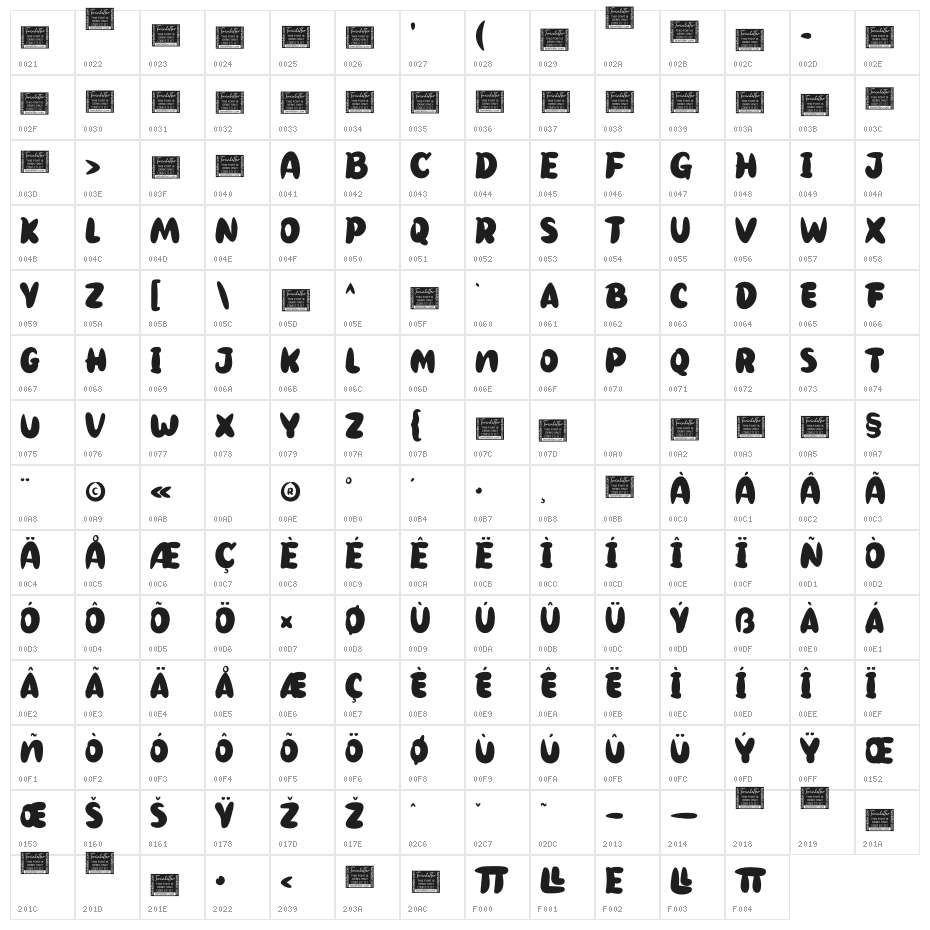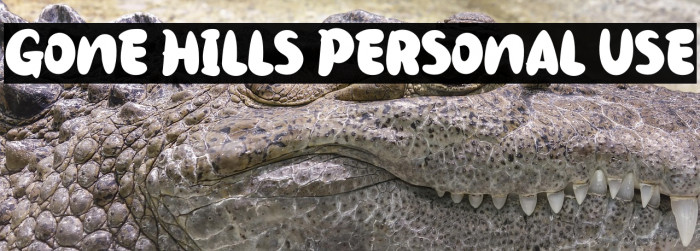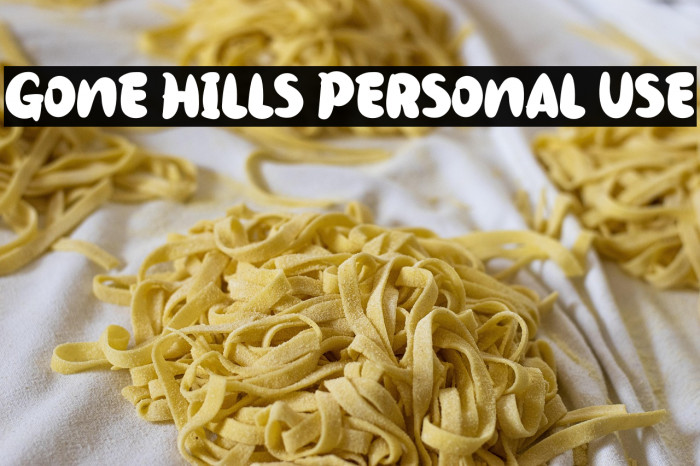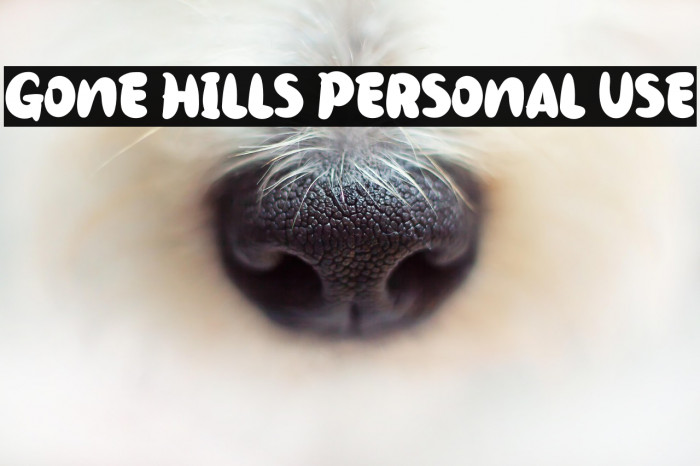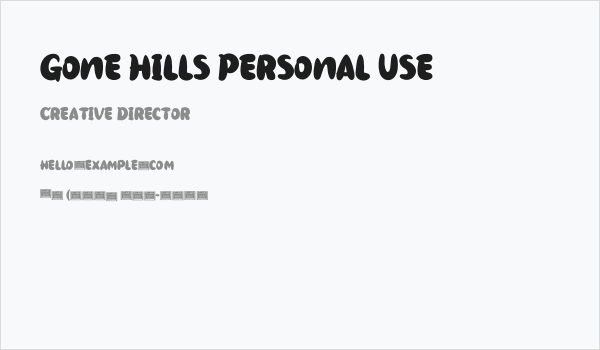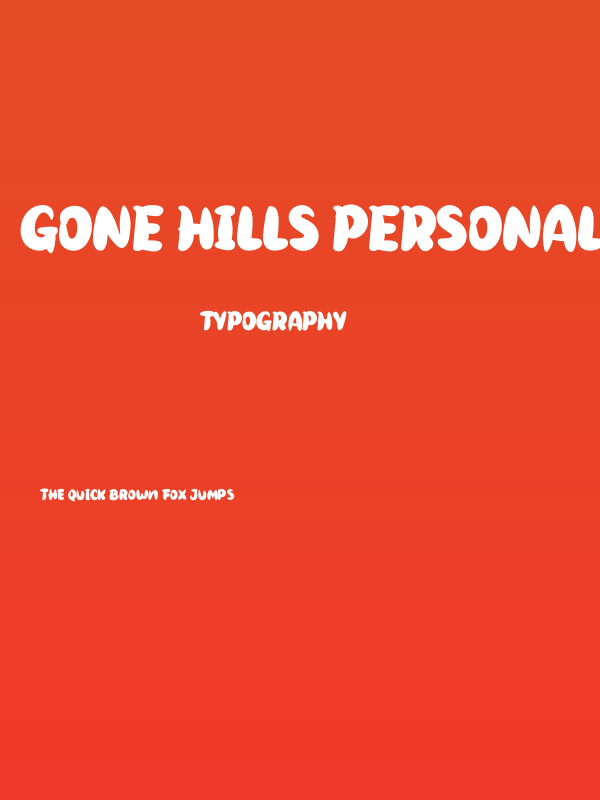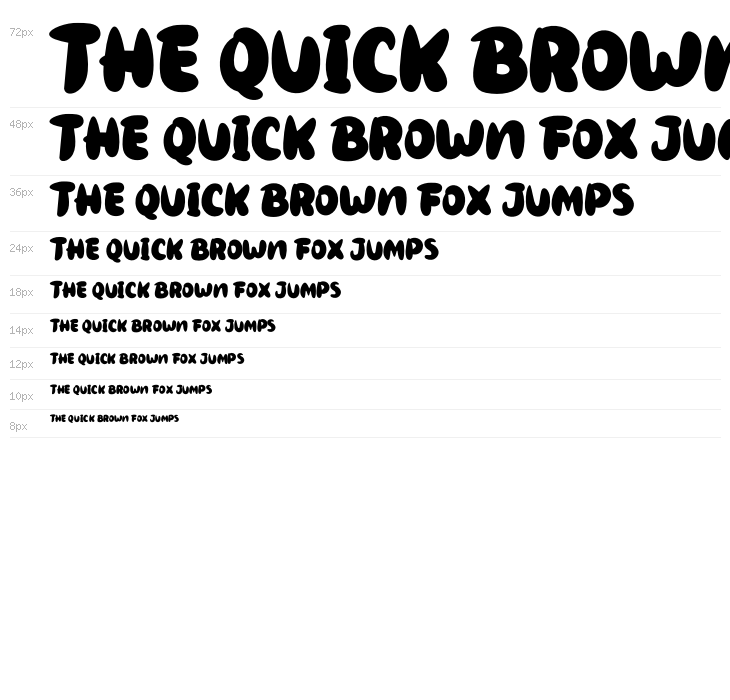
Gone Hills Personal Use Font
Gone Hills Personal Use Description
This bold, playful font features thick, rounded strokes that give it a friendly and approachable appearance. The letters are uniformly bold, with a consistent weight throughout, making it highly legible and impactful. Its whimsical style is reminiscent of hand-drawn lettering, adding a personal touch to any design. The characters are closely spaced, enhancing its cohesive look. This font is ideal for projects that require a fun and energetic vibe, such as children's books, playful branding, or eye-catching headlines.
| Proposed Projects | Ideal for children's books, playful branding, eye-catching headlines, and any project needing a fun, energetic vibe. |